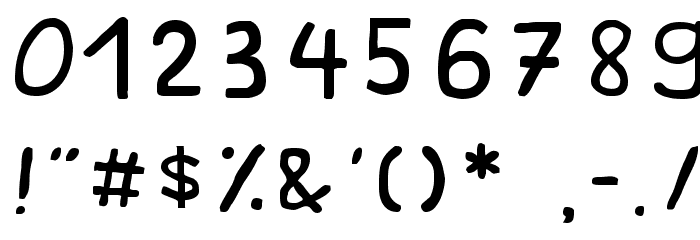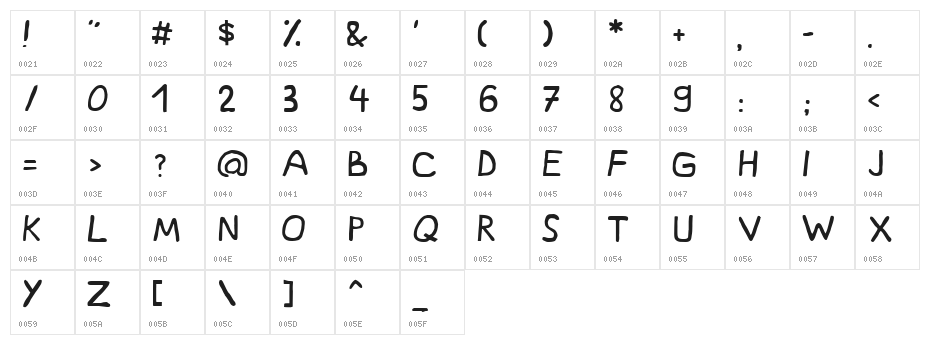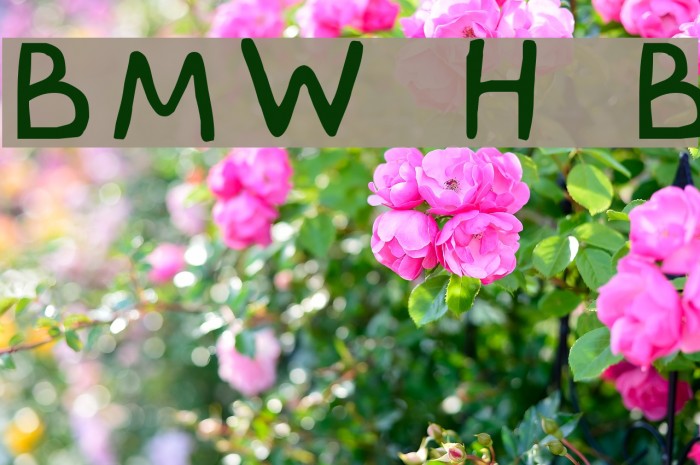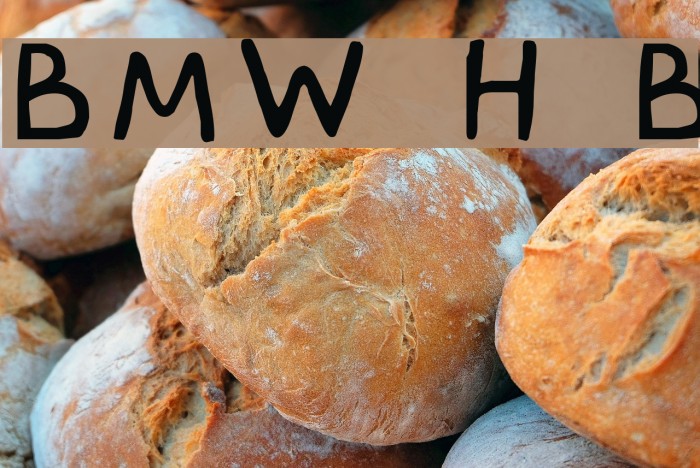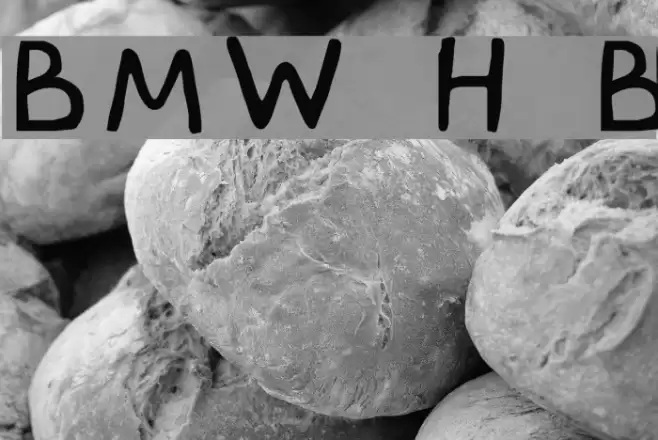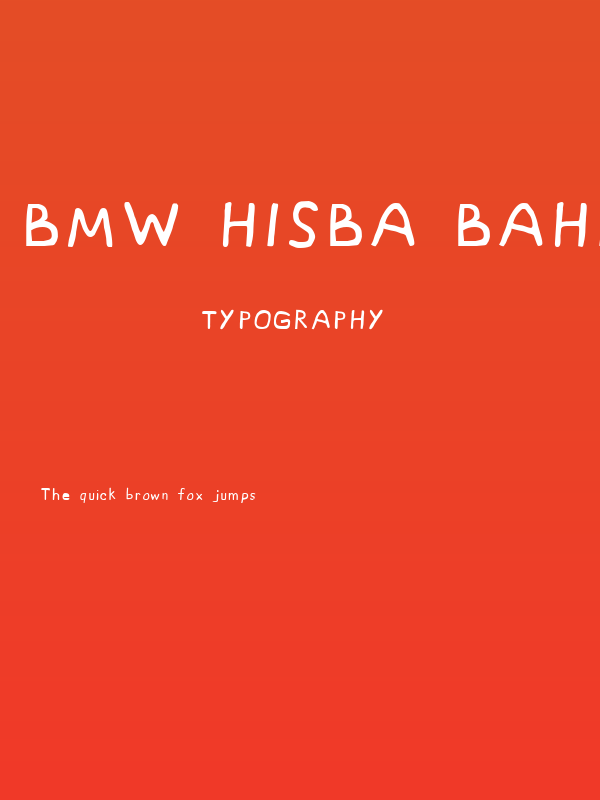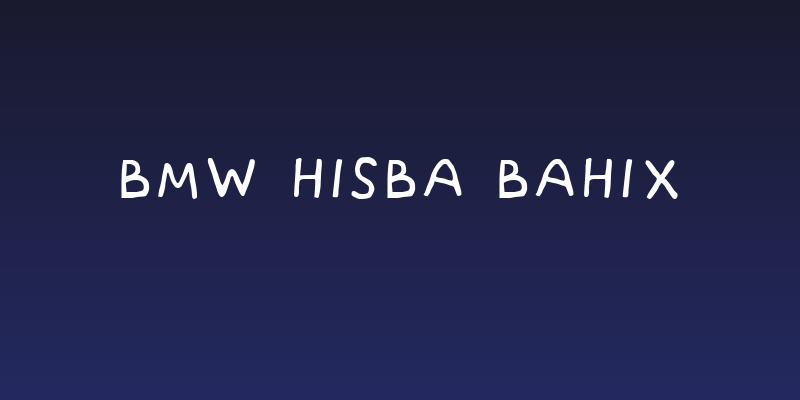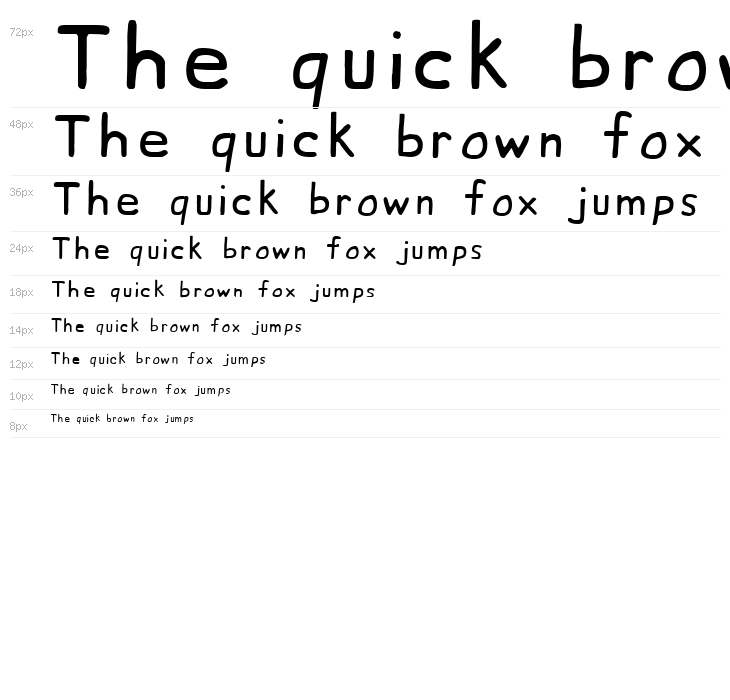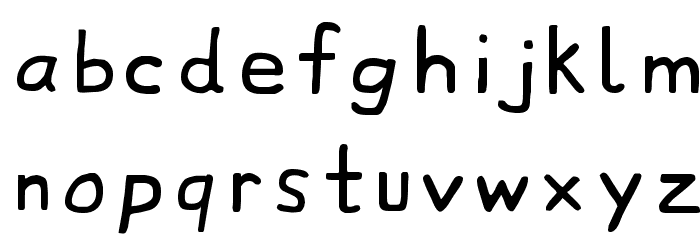
BMW Hisba Bahix Font
BMW Hisba Bahix Description
This font exudes a playful and informal vibe, characterized by its handwritten style. The letters are slightly irregular, giving it a casual and approachable feel. The strokes are consistent in thickness, providing a uniform appearance across all characters. The uppercase and lowercase letters maintain a harmonious balance, with rounded edges that enhance its friendly nature. The numerals and special characters follow the same design principles, ensuring coherence throughout the font. This style is perfect for projects that aim to convey warmth and personality.
| Overall Style | Casual |
| Use Case | Headlines, Informal text, Creative projects |
| Proposed Projects | Ideal for children's books, casual invitations, personal blogs, and creative branding projects. |